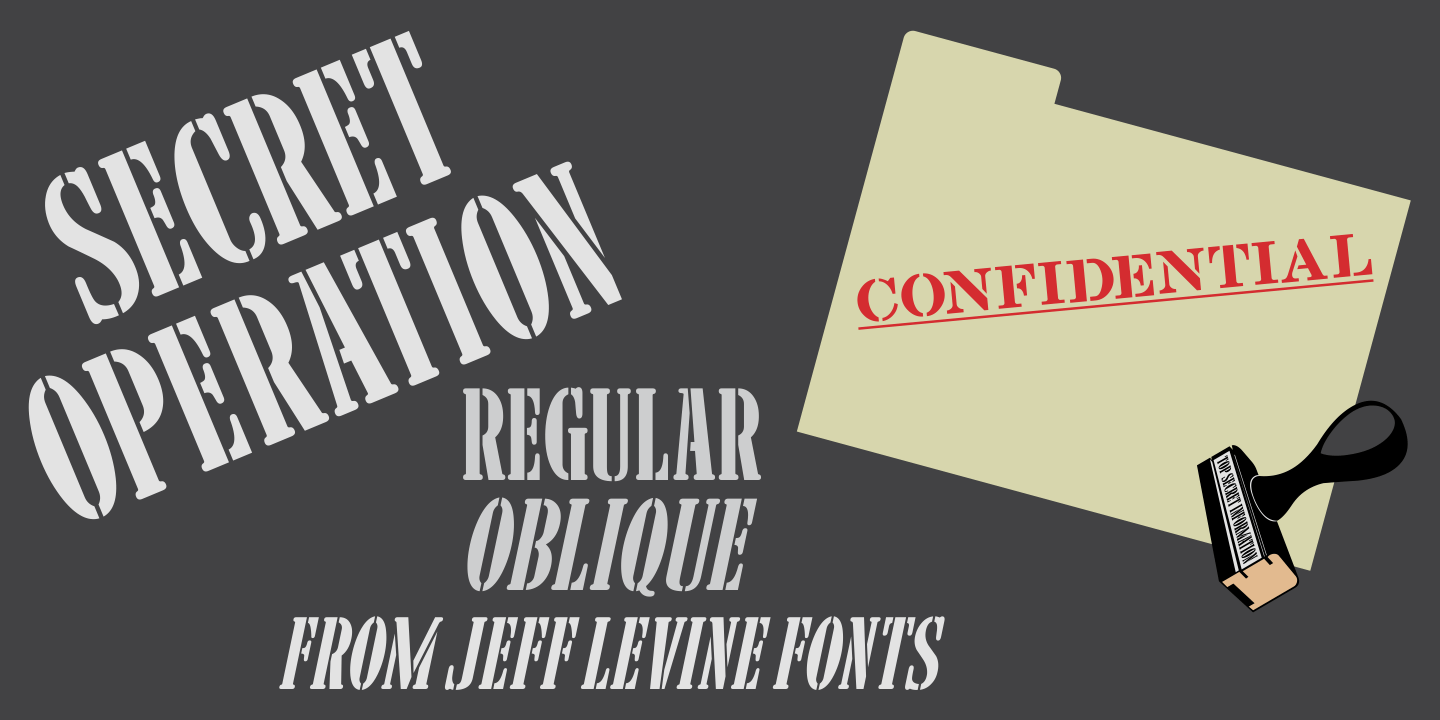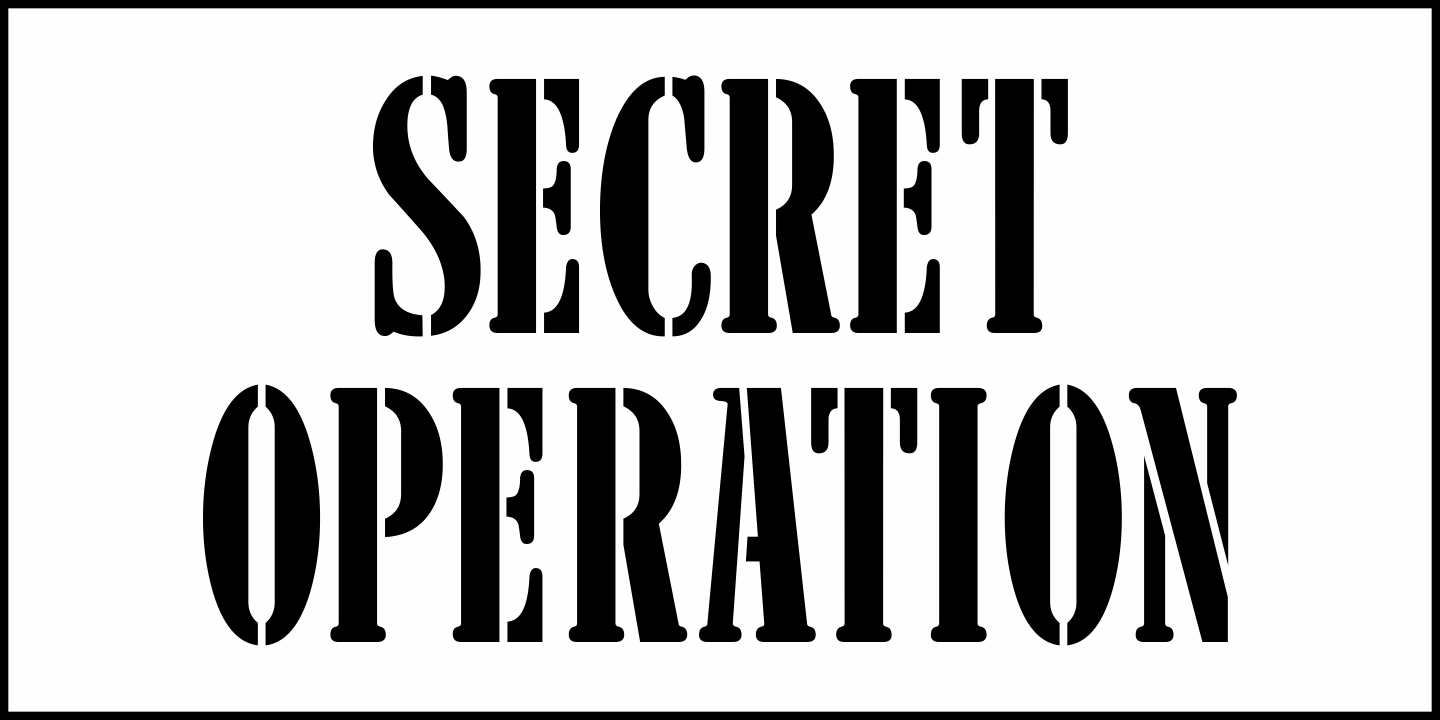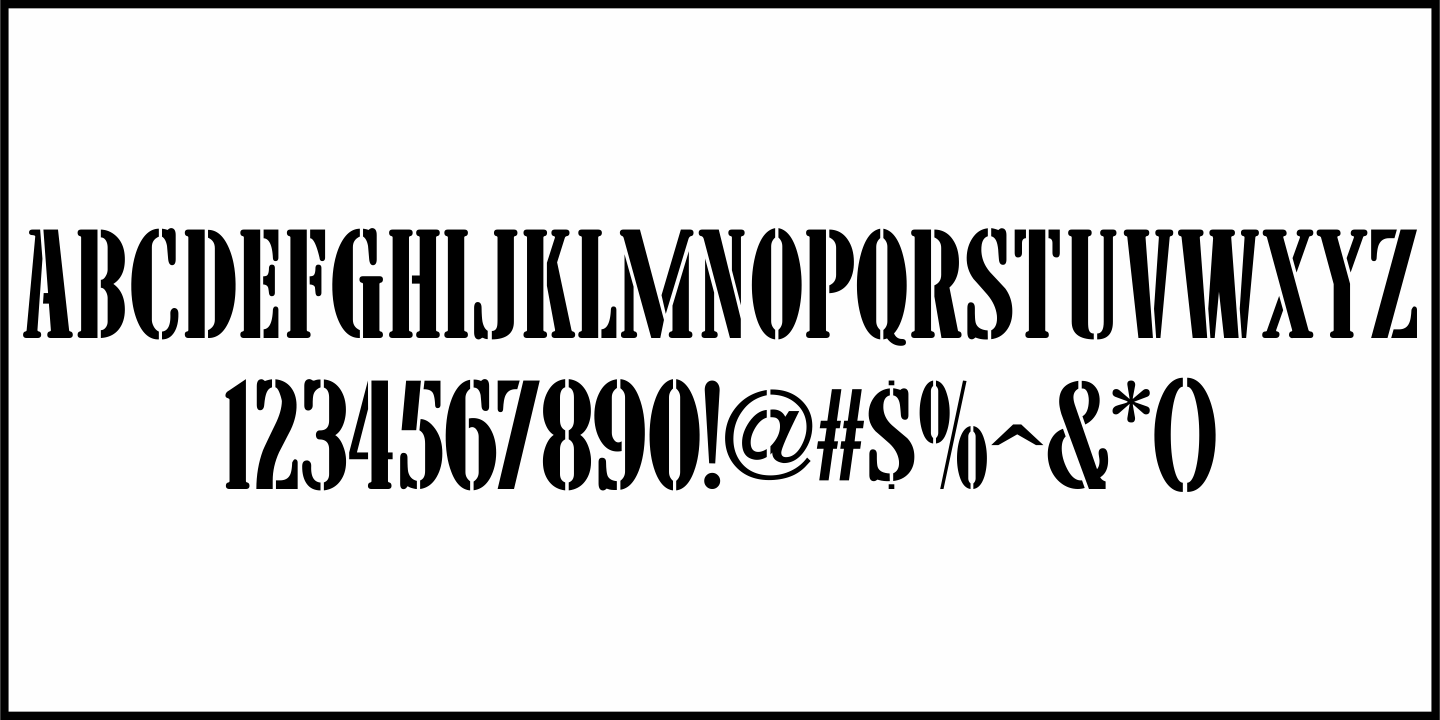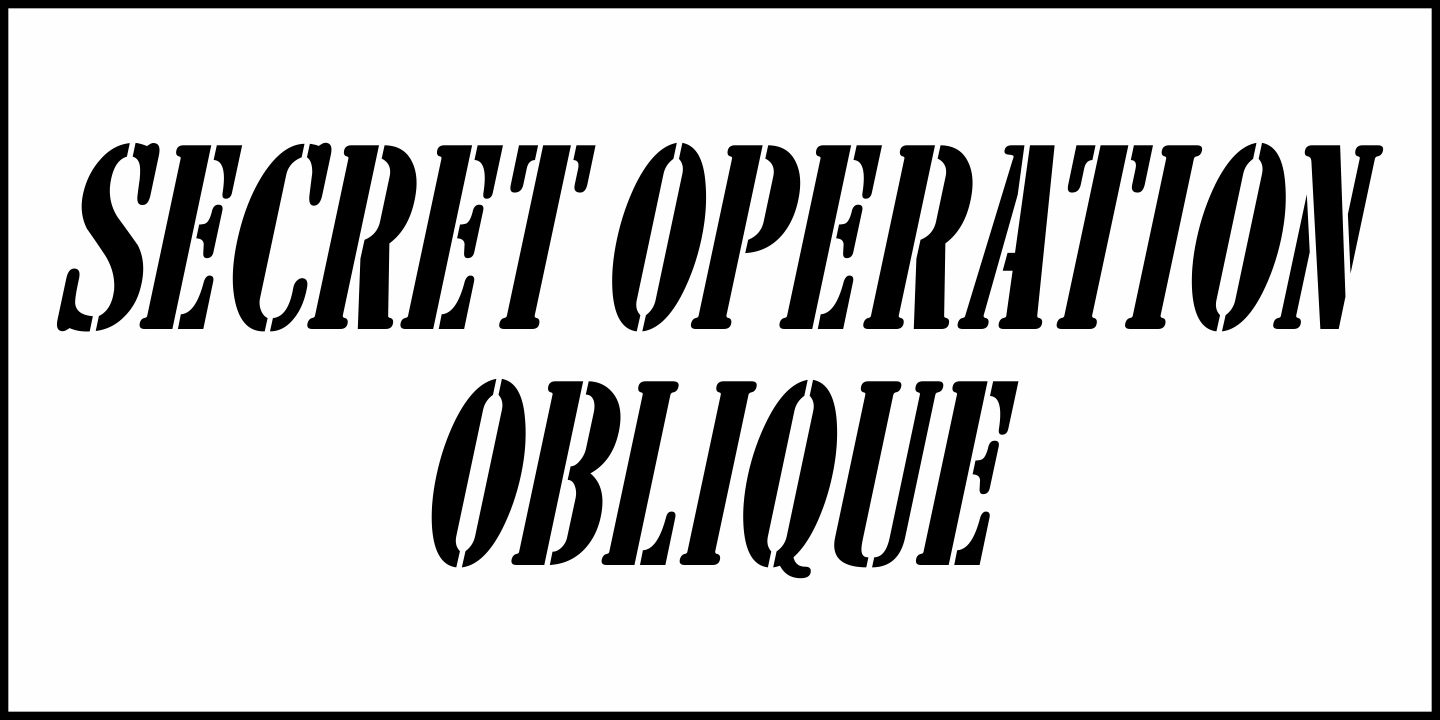
Secret Operation
The movie poster for the 1952 bank heist drama 'Kansas City Confidential' had its title hand lettered in a condensed serif stencil design.
This inspired Secret Operation JNL, which is available in both regular and oblique versions.